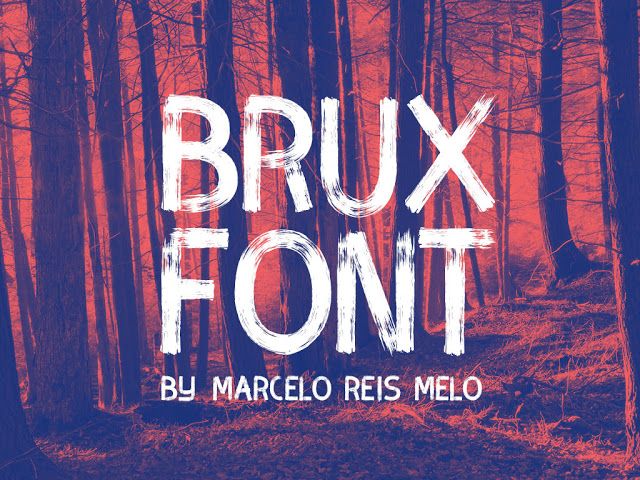
25+ Handwritten Font Brush Creativefabrica. The best selection of brush fonts for windows and macintosh. This type of font perfectly made to be. 1 2 3 4 5 6 7 8 9 10. 168 best handwritten font free brush downloads from the brusheezy community. Selima is an elegant brush font that looks great for handwritten text. Bulgarian cyrillic commercial fonts international cyrillic commercial fonts handwritten cyrillic commercial fonts. Take a look at my new font willful with its light and airy outlines, which will add something cute and soft to your designs. Regular brush script font is a elegant brush typeface. Browse by alphabetical listing, by style, by author or by popularity. You found 3,016 brush script and handwritten fonts. Download 10,000 fonts with one click for $19.95. Licensed for personal and commercial use. Archive of freely downloadable fonts. Download all 3,016 brush script and handwritten fonts unlimited times with a single envato elements subscription. Handwritten font free brushes licensed under creative commons, open source, and more!
40 Best Free Brush Fonts For Designers Fonts Graphic Design Junction. Selima is an elegant brush font that looks great for handwritten text. Handwritten font free brushes licensed under creative commons, open source, and more! You found 3,016 brush script and handwritten fonts. This type of font perfectly made to be. Browse by alphabetical listing, by style, by author or by popularity. Take a look at my new font willful with its light and airy outlines, which will add something cute and soft to your designs. Archive of freely downloadable fonts. 1 2 3 4 5 6 7 8 9 10. The best selection of brush fonts for windows and macintosh. Bulgarian cyrillic commercial fonts international cyrillic commercial fonts handwritten cyrillic commercial fonts. Download 10,000 fonts with one click for $19.95. 168 best handwritten font free brush downloads from the brusheezy community. Regular brush script font is a elegant brush typeface. Download all 3,016 brush script and handwritten fonts unlimited times with a single envato elements subscription. Licensed for personal and commercial use.
Browse by alphabetical listing, by style, by author or by popularity. Licensed for personal and commercial use. 168 best handwritten font free brush downloads from the brusheezy community. Fontrust a new brush handwritten font. As an added bonus, the free font also comes with a. Handwritten fonts are a natural choice to use in stationery design, such as invitations. Uppercase, numbers, punctuation, and discover more than 10 million professional graphic resources on freepik.
Handwritten brush style modern calligraphy cursive typeface. 1 2 3 4 5 6 7 8 9 10. Browse by alphabetical listing, by style, by author or by popularity. Regular brush script font is a elegant brush typeface. Handwritten brush style modern calligraphy cursive typeface. Download and install free handwritten fonts of the best quality from free fonts and use on your own personal and business related design purposes. They're so swirly, twirly, and just plain lovely. Writing fonts include both printing and cursive styles and is less artistic than formal calligraphy. You can customize your experience with live font previews. Handwritten fonts are a natural choice to use in stationery design, such as invitations. Download all 3,016 brush script and handwritten fonts unlimited times with a single envato elements subscription. 168 best handwritten font free brush downloads from the brusheezy community. .script (1) brush font (2) brush fonts (1) brush fonts (2) brush script (6) brush script font (4) great (1) greece/roman (1) hand drawing fonts (22) handwritten (5) handwritten (3) handwritten. All fonts are categorized and can be. This type of font perfectly made to be. These 20+ free handwritten brush fonts are perfect for just about anything. Archive of freely downloadable fonts. Handwritten font free brushes licensed under creative commons, open source, and more! Download 10,000 fonts with one click for $19.95. Browse and download handwriting fonts and generate images from custom text with handwriting fonts. As an added bonus, the free font also comes with a. Craft a personalized note with one of these. Takota is a stylish brush font coming from syaf rizal. Use them for printables, framable quotes & art, vinyl, crafts, and more. It contains uppercase, lowercase, numbers, punctuation, symbols and support multilingual. This font is great for branding, labels and logos. The best selection of brush fonts for windows and macintosh. Uppercase, numbers, punctuation, and discover more than 10 million professional graphic resources on freepik. Handwriting fonts are written with a pen, pencil, or marker. The font includes both uppercase and lowercase, numbers and some special characters. Fontrust a new brush handwritten font.
40 Best Free Brush Fonts For Designers Fonts Graphic Design Junction. You found 3,016 brush script and handwritten fonts. Download all 3,016 brush script and handwritten fonts unlimited times with a single envato elements subscription. Handwritten font free brushes licensed under creative commons, open source, and more! Browse by alphabetical listing, by style, by author or by popularity. Selima is an elegant brush font that looks great for handwritten text. This type of font perfectly made to be. 1 2 3 4 5 6 7 8 9 10. 168 best handwritten font free brush downloads from the brusheezy community. Download 10,000 fonts with one click for $19.95. Regular brush script font is a elegant brush typeface. Licensed for personal and commercial use. Take a look at my new font willful with its light and airy outlines, which will add something cute and soft to your designs. Bulgarian cyrillic commercial fonts international cyrillic commercial fonts handwritten cyrillic commercial fonts. The best selection of brush fonts for windows and macintosh. Archive of freely downloadable fonts.
This font is great for branding, labels and logos.
40 Best Free Brush Fonts For Designers Fonts Graphic Design Junction. Regular brush script font is a elegant brush typeface. 1 2 3 4 5 6 7 8 9 10. Bulgarian cyrillic commercial fonts international cyrillic commercial fonts handwritten cyrillic commercial fonts. Take a look at my new font willful with its light and airy outlines, which will add something cute and soft to your designs. Licensed for personal and commercial use. Handwritten font free brushes licensed under creative commons, open source, and more! The best selection of brush fonts for windows and macintosh. Download 10,000 fonts with one click for $19.95. Browse by alphabetical listing, by style, by author or by popularity. Archive of freely downloadable fonts. Download all 3,016 brush script and handwritten fonts unlimited times with a single envato elements subscription. You found 3,016 brush script and handwritten fonts. Selima is an elegant brush font that looks great for handwritten text. 168 best handwritten font free brush downloads from the brusheezy community. This type of font perfectly made to be.
Download Free Handwritten Brush Font Mockup Mockup Free Downloads. Browse by alphabetical listing, by style, by author or by popularity. You found 3,016 brush script and handwritten fonts. Download 10,000 fonts with one click for $19.95. Selima is an elegant brush font that looks great for handwritten text. 168 best handwritten font free brush downloads from the brusheezy community. Take a look at my new font willful with its light and airy outlines, which will add something cute and soft to your designs. Handwritten font free brushes licensed under creative commons, open source, and more! Licensed for personal and commercial use. Bulgarian cyrillic commercial fonts international cyrillic commercial fonts handwritten cyrillic commercial fonts. 1 2 3 4 5 6 7 8 9 10. Archive of freely downloadable fonts. This type of font perfectly made to be. The best selection of brush fonts for windows and macintosh. Regular brush script font is a elegant brush typeface. Download all 3,016 brush script and handwritten fonts unlimited times with a single envato elements subscription.
Download this free vector about handwritten script font.
25 Free Brush Script Hand Lettering Fonts Design Shack. Download all 3,016 brush script and handwritten fonts unlimited times with a single envato elements subscription. Regular brush script font is a elegant brush typeface. Selima is an elegant brush font that looks great for handwritten text. Bulgarian cyrillic commercial fonts international cyrillic commercial fonts handwritten cyrillic commercial fonts. The best selection of brush fonts for windows and macintosh. Download 10,000 fonts with one click for $19.95. Take a look at my new font willful with its light and airy outlines, which will add something cute and soft to your designs. Browse by alphabetical listing, by style, by author or by popularity. Handwritten font free brushes licensed under creative commons, open source, and more! Archive of freely downloadable fonts. Licensed for personal and commercial use. 168 best handwritten font free brush downloads from the brusheezy community. You found 3,016 brush script and handwritten fonts. 1 2 3 4 5 6 7 8 9 10. This type of font perfectly made to be.
Eustache brush handwritten font comes with upper and lowercase basic characters, numerals, punctuations as well as some special ligatures.
Hanif Font. You found 3,016 brush script and handwritten fonts. Browse by alphabetical listing, by style, by author or by popularity. 168 best handwritten font free brush downloads from the brusheezy community. Archive of freely downloadable fonts. Take a look at my new font willful with its light and airy outlines, which will add something cute and soft to your designs. Download all 3,016 brush script and handwritten fonts unlimited times with a single envato elements subscription. Licensed for personal and commercial use. This type of font perfectly made to be. Selima is an elegant brush font that looks great for handwritten text. Handwritten font free brushes licensed under creative commons, open source, and more! Bulgarian cyrillic commercial fonts international cyrillic commercial fonts handwritten cyrillic commercial fonts. Regular brush script font is a elegant brush typeface. 1 2 3 4 5 6 7 8 9 10. Download 10,000 fonts with one click for $19.95. The best selection of brush fonts for windows and macintosh.
Craft a personalized note with one of these. Regular brush script font is a elegant brush typeface. You found 3,016 brush script and handwritten fonts. Licensed for personal and commercial use. Download free brush fonts at urbanfonts.com our site carries over 30,000 pc fonts and mac fonts. Use them for printables, framable quotes & art, vinyl, crafts, and more. You can customize your experience with live font previews. Download and install free handwritten fonts of the best quality from free fonts and use on your own personal and business related design purposes. As an added bonus, the free font also comes with a. Take a look at my new font willful with its light and airy outlines, which will add something cute and soft to your designs.